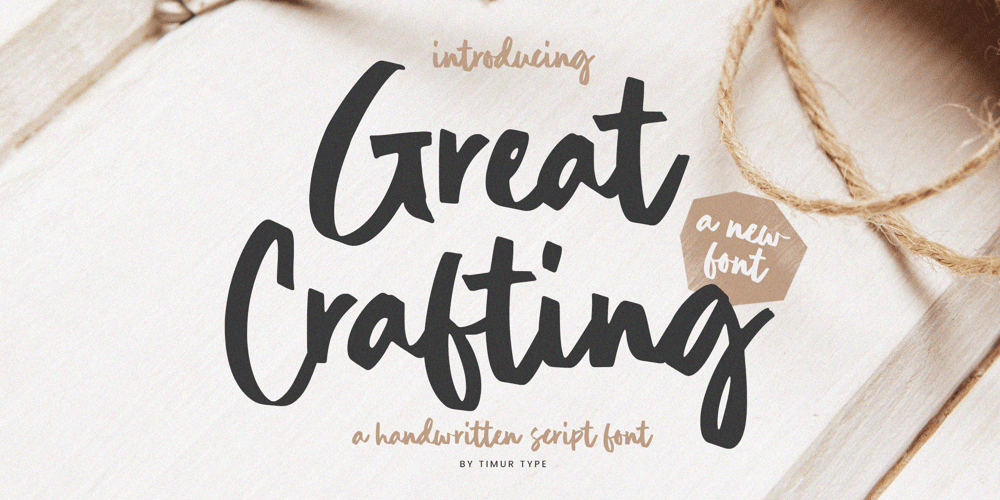
Great Crafting Font Family was designed by Wara Sigit Tri Pamungkas and published by Timurtype. Great Crafting contains 1 styles and family package options. Introduced by Timurtype Studio!Great Crafting is a Handwritten Script Font This font is a versatile and charming choice for your design projects. With its natural and imperfect letterforms, this font exudes authenticity and creativity. The slight irregularities and varied stroke widths give the Great Crafting font a handcrafted and artisanal aesthetic, ideal for adding a personal touch to your DIY projects, handmade goods, and craft-related designs. Whether you’re aiming for a rustic and homemade look or a whimsical and playful feel, the Great Crafting font offers versatility and warmth. Embrace the unique character of the Great Crafting handwritten script font and elevate your designs with a touch of handmade charm and artistic flair.Great Crafting Font also supports multilingualismEnhance your designs with our original fonts, feel free to comment or provide feedback, Enjoy the fonts 😊Thank You